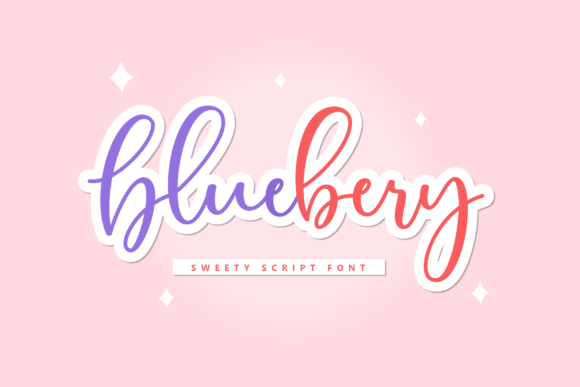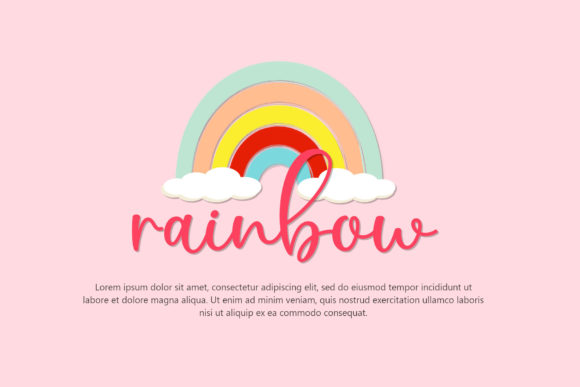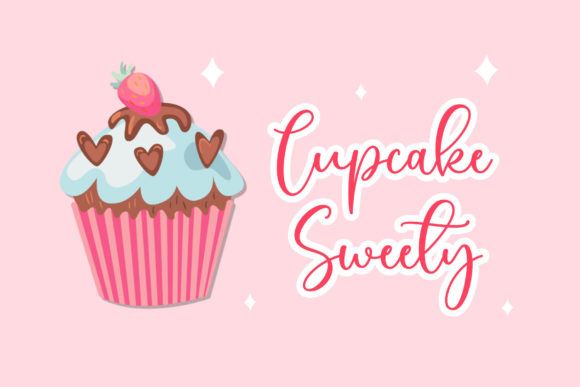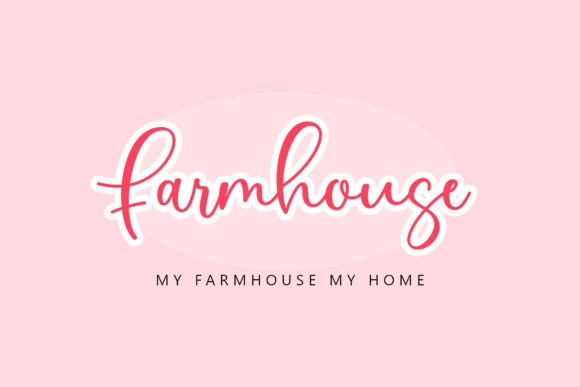
About the Bluebery Font  Font
From logos to headlines, the Bluebery Font  Font is the perfect choice for making a lasting impression. Bluebery is a sweet script font designed with a unique shape and medium thickness.
It is suitable for use in your various design projects such as birthday cards, posters, logos, business cards, crafting and many more.
Bluebery’s medium thickness and unique shape make it ideal for headlines, short text blocks on posters or packaging, and logos requiring a touch of playful elegance. It works particularly well for brands targeting a younger demographic or those with a friendly, approachable aesthetic. Avoid using Bluebery for body text or long paragraphs; its script nature makes extended reading difficult.
Pairing Bluebery with a clean sans-serif like Open Sans for body copy provides excellent contrast and readability. For a more sophisticated feel, consider pairing it with a subtle serif like Lato or Playfair Display. A geometric sans-serif like Montserrat could also create a modern, balanced feel, depending on the overall design goal.
The font’s personality is best described as friendly and approachable, with a hint of sophistication. Its sweetness and unique curves contribute to a feeling of warmth and approachability, making it a strong choice for projects that value both style and approachability.